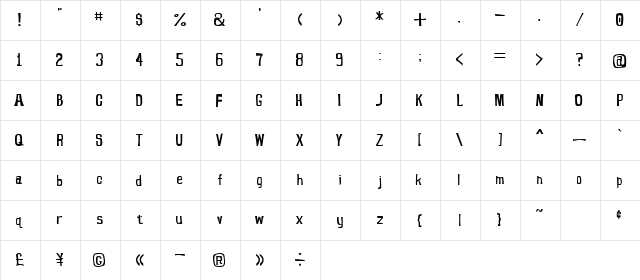
SG BROKENHEAD Regular
Design Context for SG BROKENHEAD Typeface
SG BROKENHEAD offers clean, dependable letterforms without strong stylistic allegiance, making it a practical choice for designers who need flexibility.